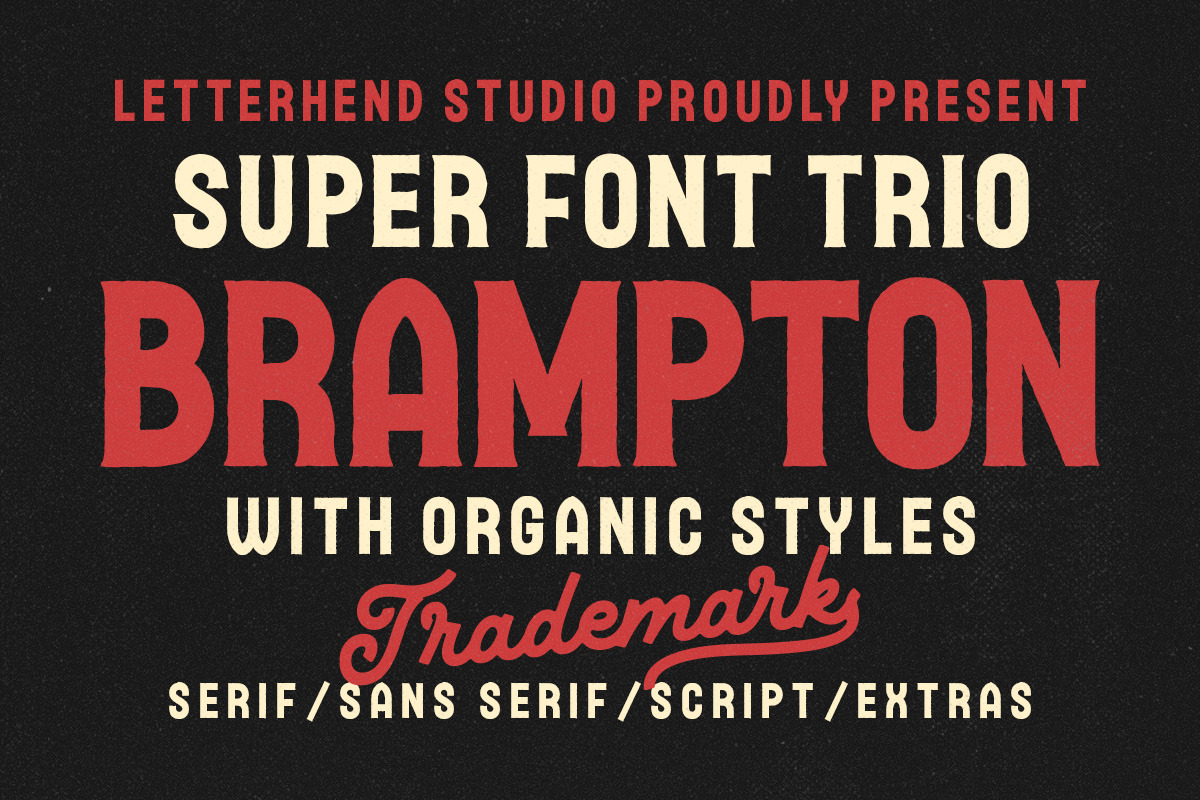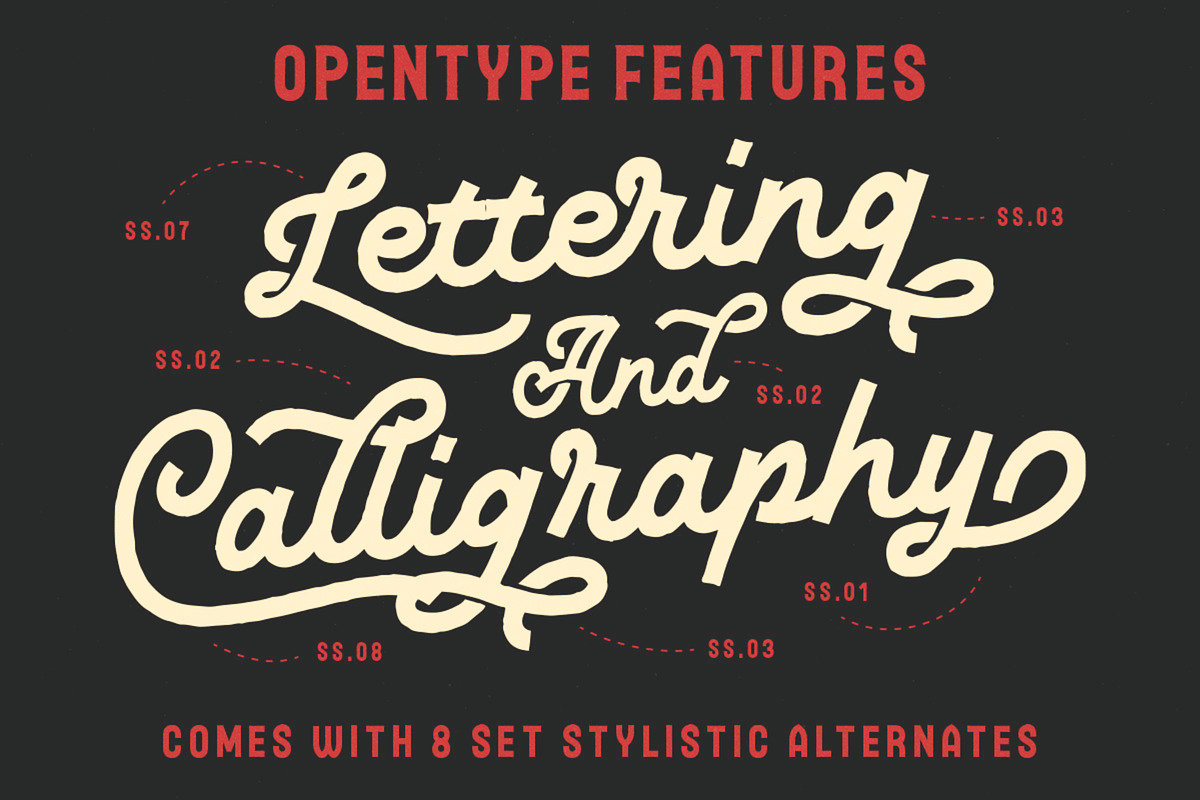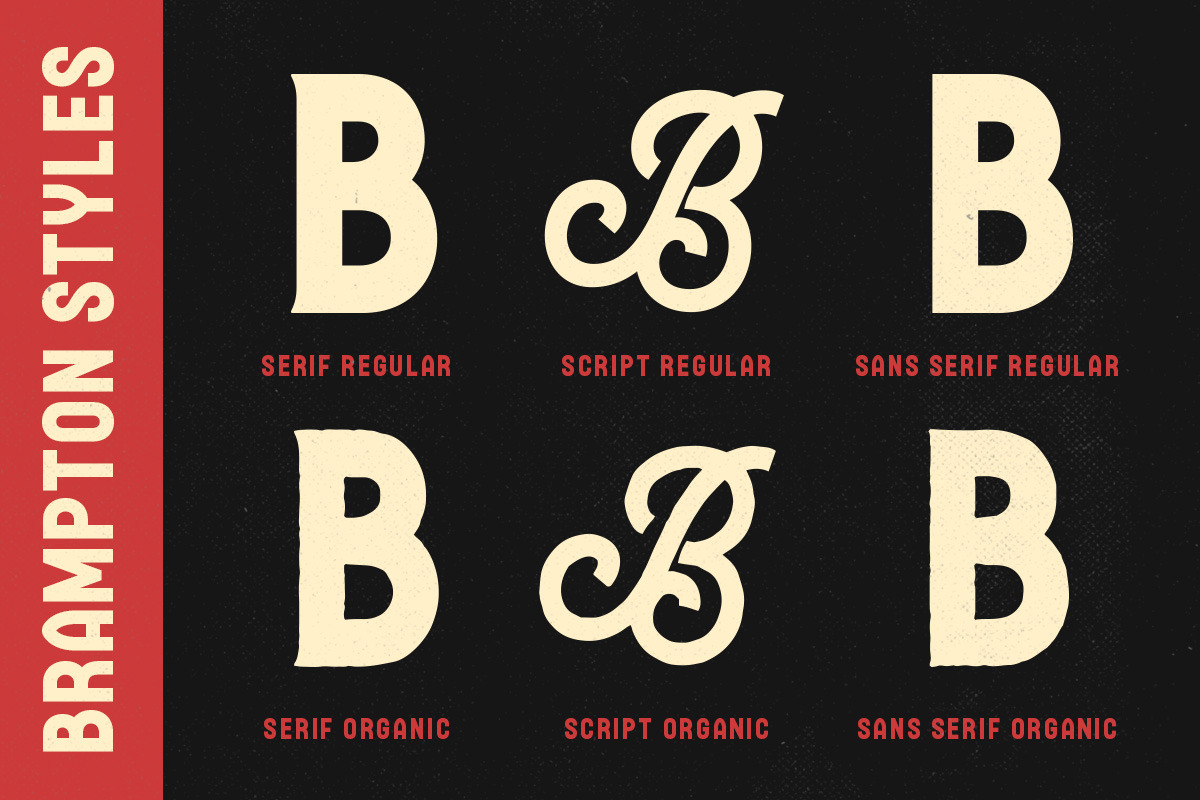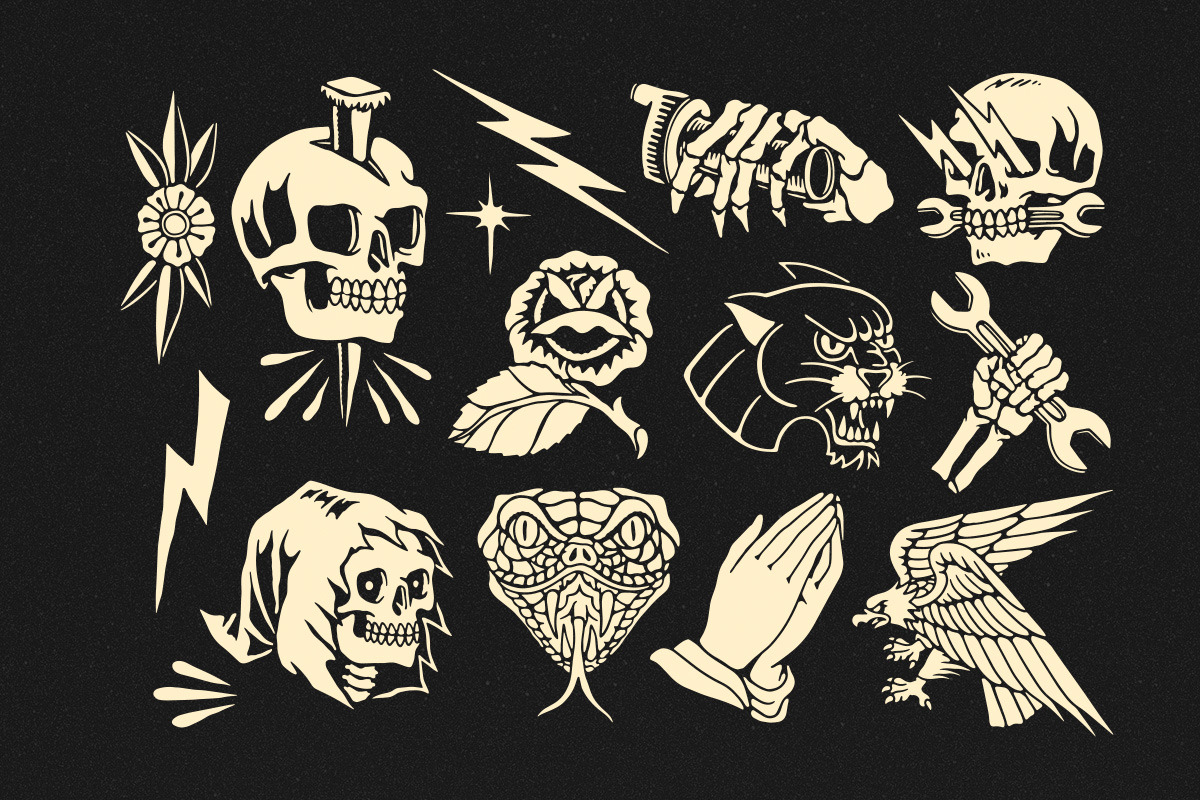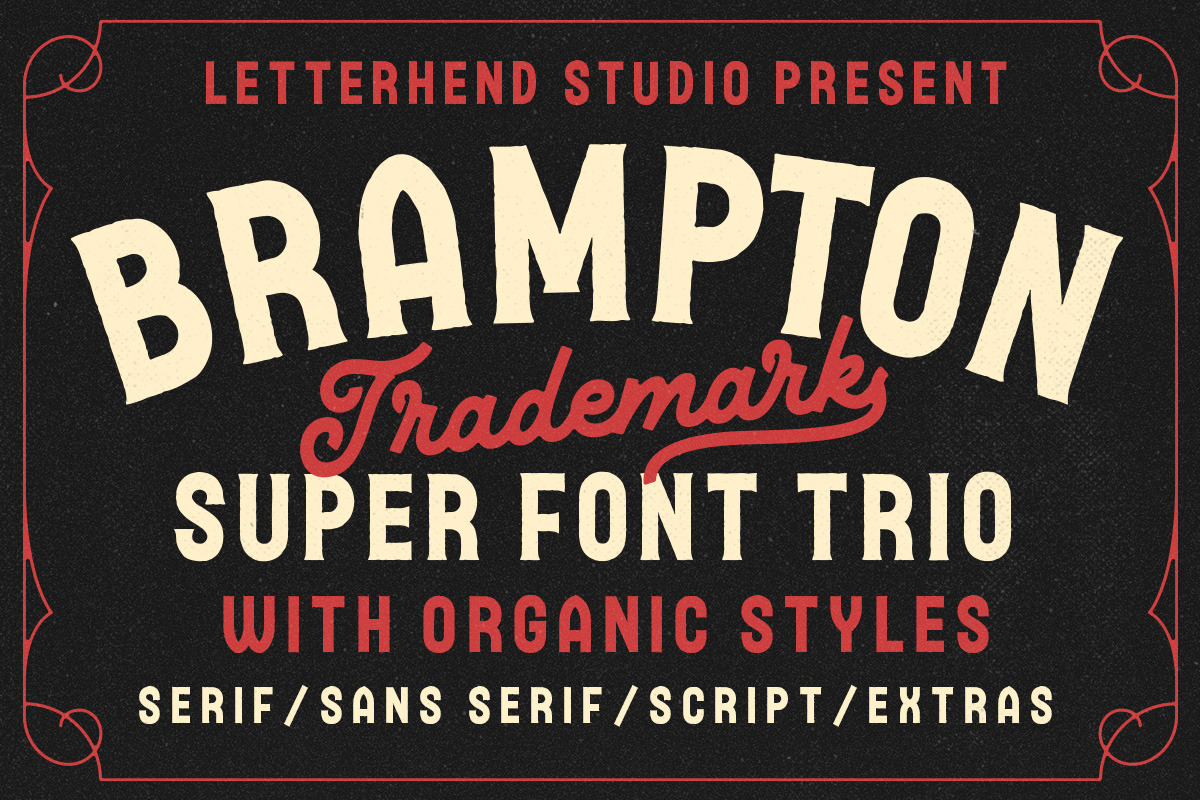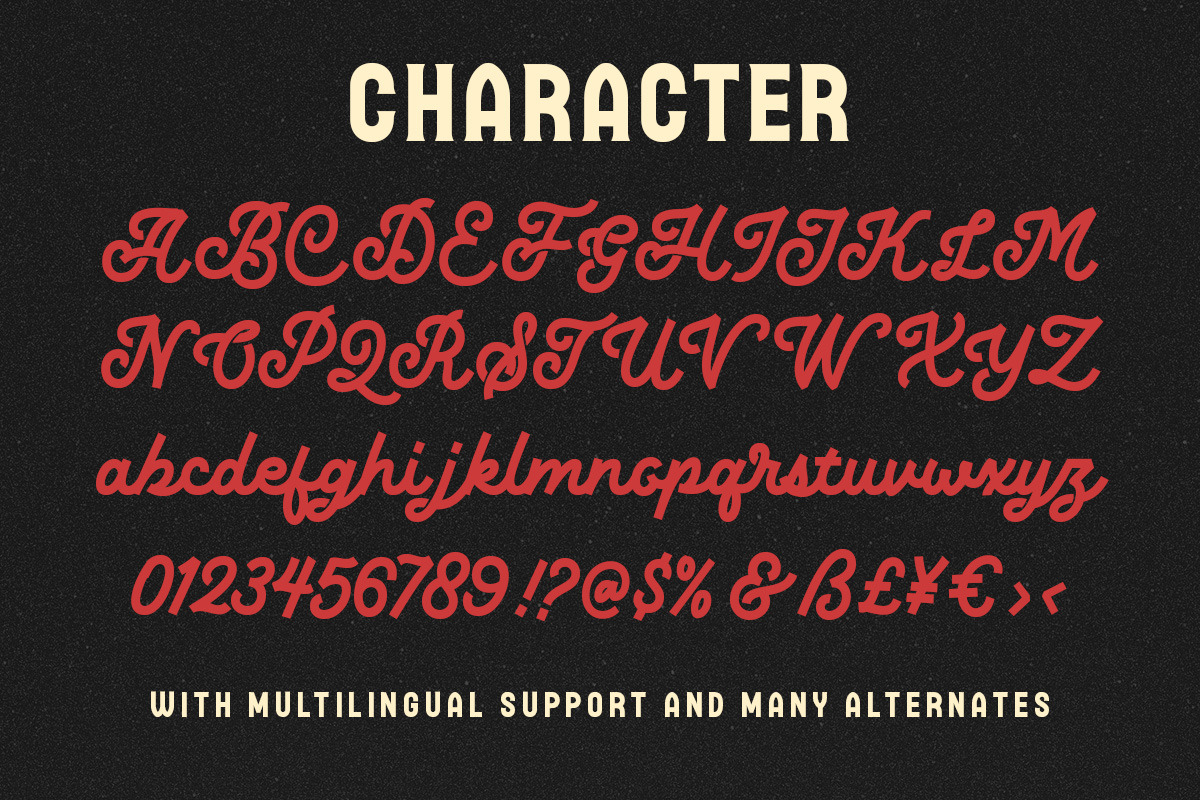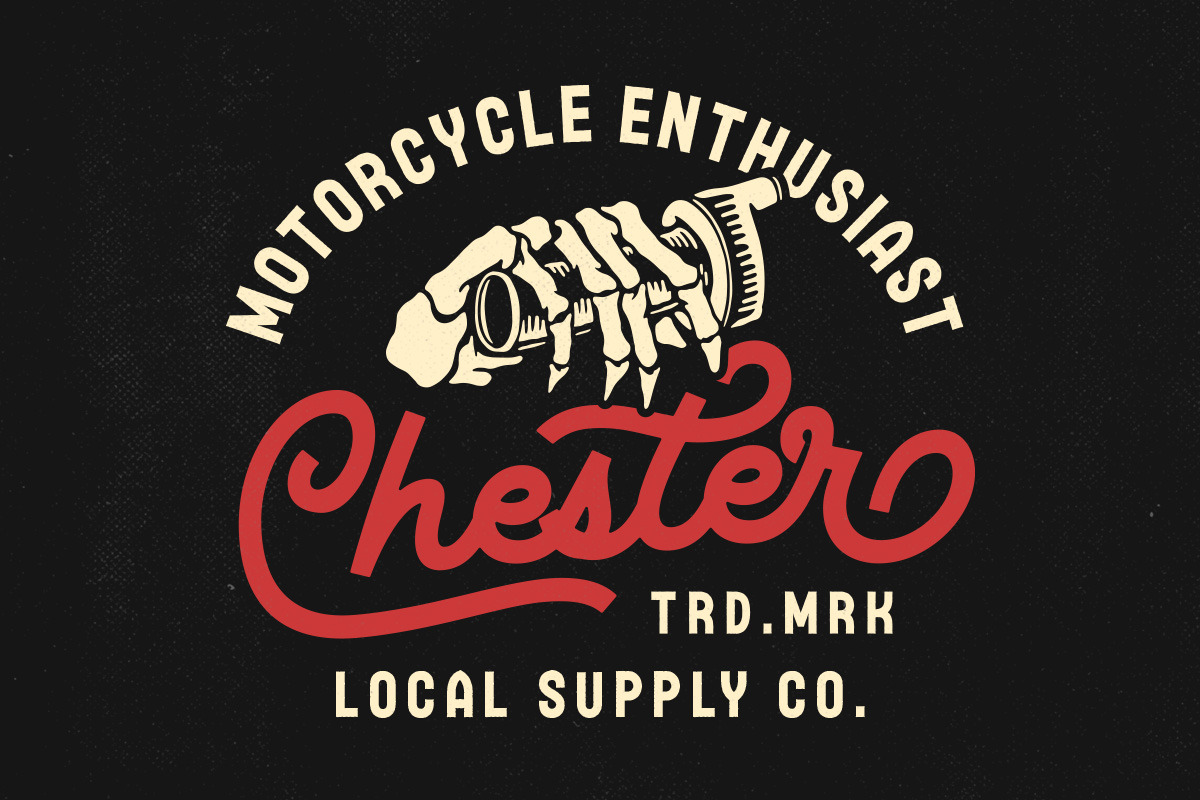
Brampton - Font Trio with extras
Brampton is a font trio package contain a monoline script, serif and sans serif which looks great to be paired especially for vintage and adventure theme! It also comes with extra illustrations! This font trio is purposely made for headline, display or logotype, and signature which need a standout appearing. This font is also suitable to be applied especially in logo, and the other various formal forms such as invitations, labels, logos, magazines, books, greeting / wedding cards, packaging, fashion, make up, stationery, novels, labels or any type of advertising purpose.
- Brampton Serif, Sans Serif and Script
- Illustration
- alternates & ligatures